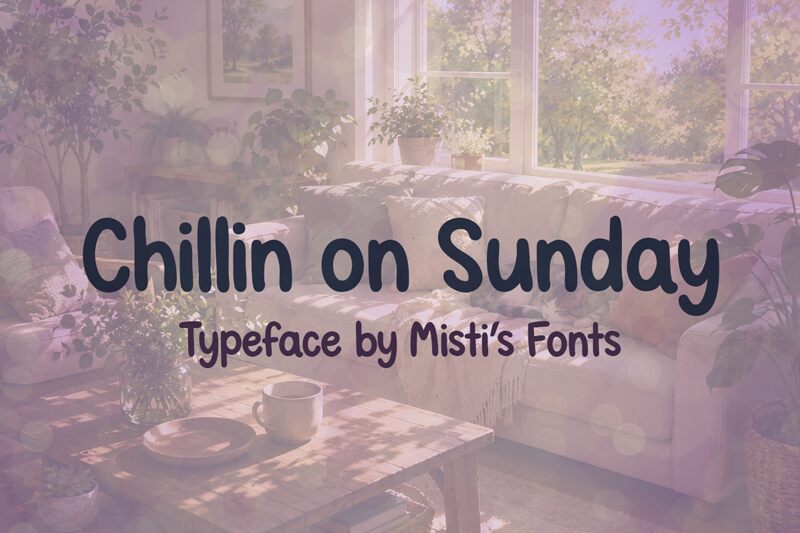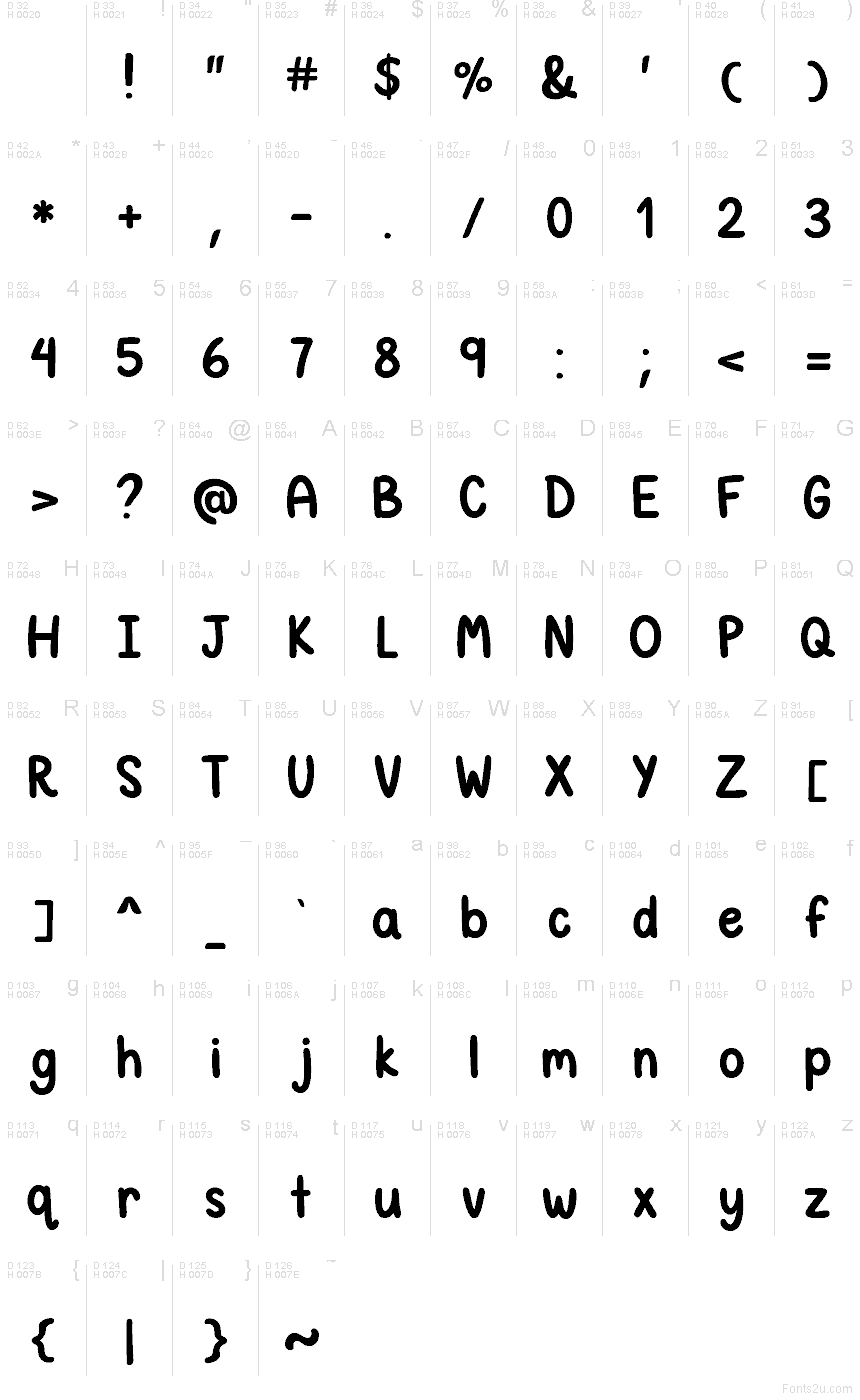
Chillin on Sunday from Misti's Fonts is a free handwritten font with plump, rounded strokes, blunt ends, and a loose upright stance. Its letters vary gently in width and height, so tall forms rise above broad, low-slung rounds, and the uneven contours keep the writing cheerful and unhurried.
For cafe packaging and children's event graphics, the friendly forms supply a warm, relaxed, informal voice that feels drawn for the occasion. The same easygoing lettering also suits greeting cards, casual posters, and craft merchandise, where its rounded silhouettes can echo little illustrations based on clouds, sweet treats, flowers, or smiling faces.